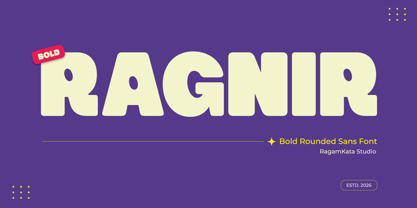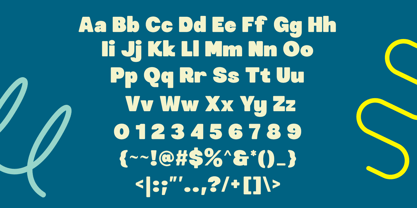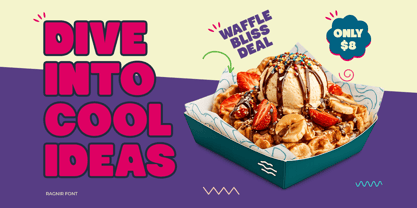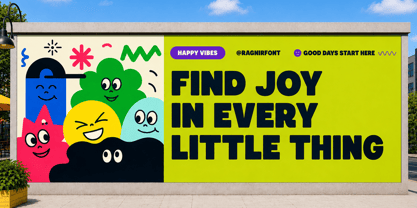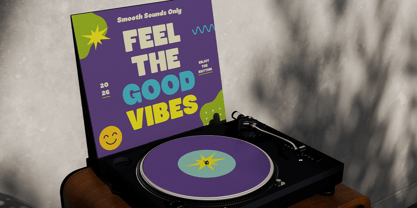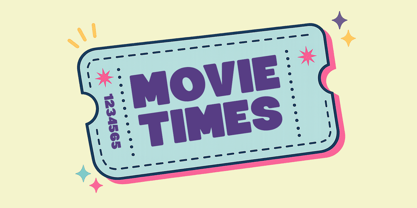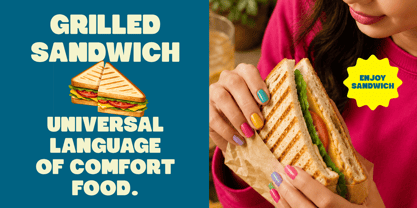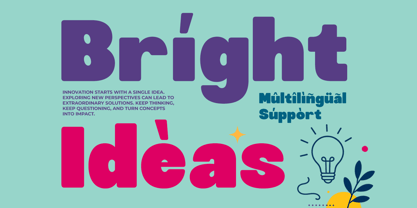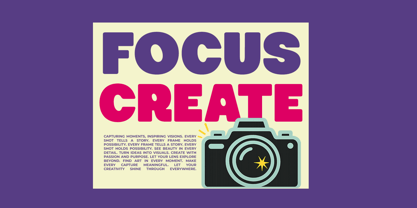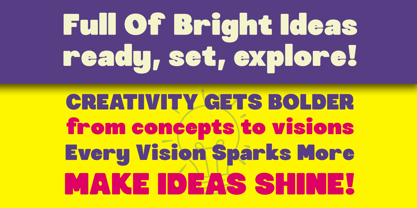
Ragnir
by RagamKata
The Ragnir Font Family was designed by Yogiswhara Dio Prakoso Riadi and published by RagamKata. Ragnir contains 2 styles and family package options. More about this family
Ragnir is a bold rounded sans serif font built to command attention instantly. Featuring chunky letterforms, soft curves, and a playful modern character, this typeface combines strong visual impact with excellent readability. Its bold geometric construction makes it ideal for projects that need energy, confidence, and a contemporary look.
Perfect for branding, logos, posters, packaging, social media, gaming graphics, advertising campaigns, merchandise, children’s projects, headlines, and digital content, Ragnir delivers versatility across both print and screen designs. The rounded shapes create a friendly yet powerful appearance that feels modern and expressive.
Designed for creators who love bold typography, Ragnir helps your designs stand out with a fun and professional personality. Whether for commercial branding or creative display work, this font brings maximum impact.